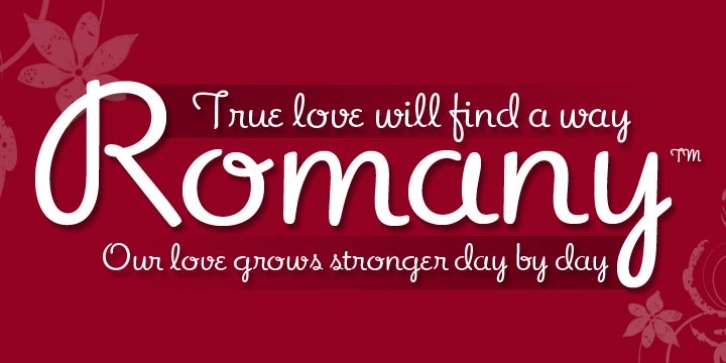
Romany downloadDesigner: Terrance Weinzierl,
Publisher: Ascender
The Romany font is an non-connecting script which was originally designed by A.R. Bosco and released by American Type Founders in 1934.
Romany is particularly useful for a Valentines greeting but is equally at home with spring blooms or an art deco themed New Year. Revitalized by Ascender’s Terrance Weinzierl, Romany brings a touch of informal class to headlines, cards, invitations and thank you cards.